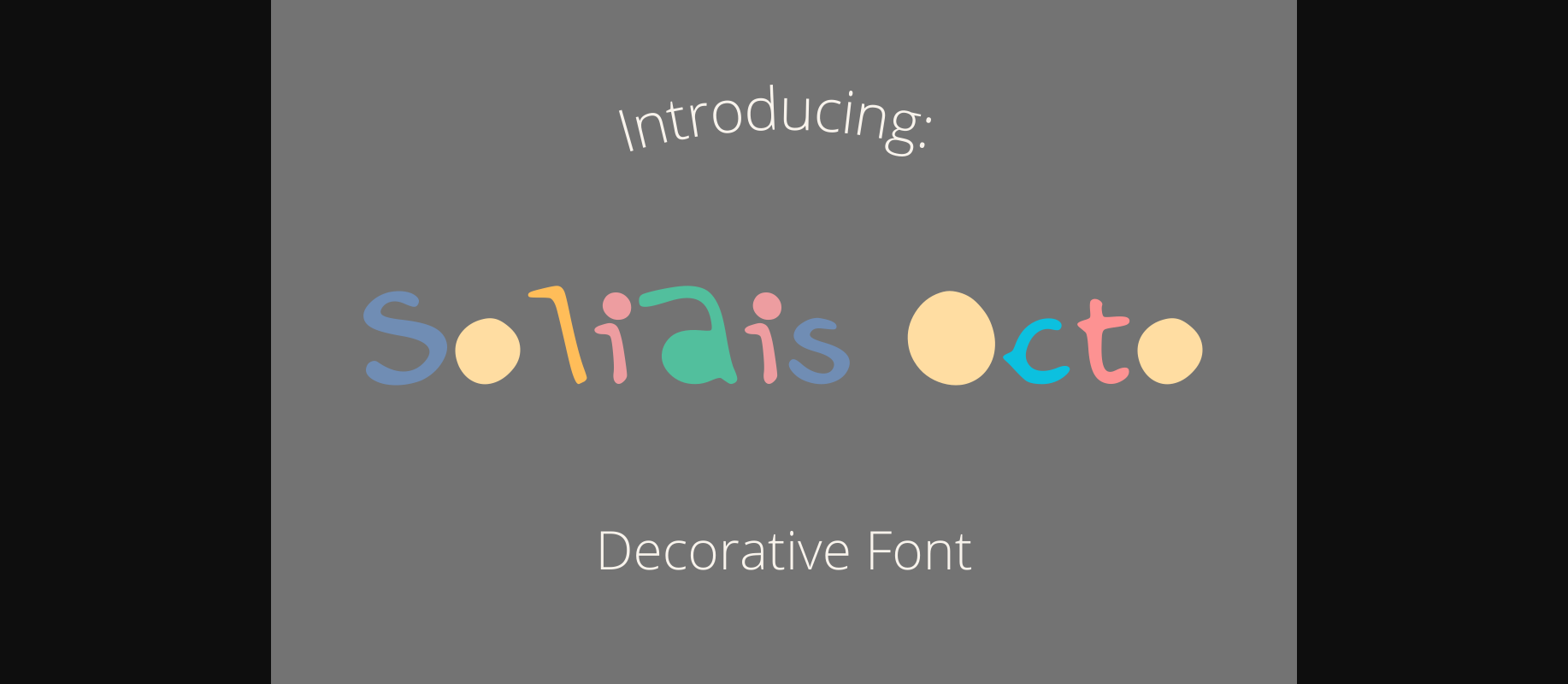
This font is characterized by its whimsical and playful nature, making it a great choice for adding a touch of charm and imagination to children’s book covers, posters, and playful designs.